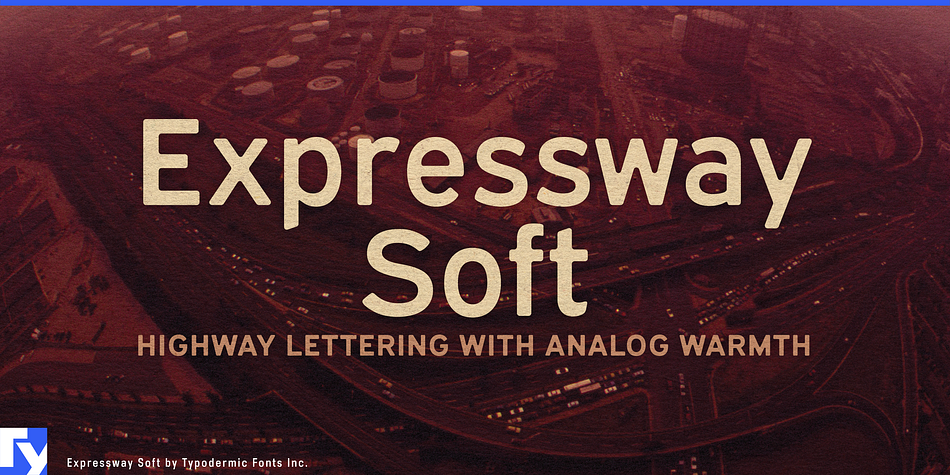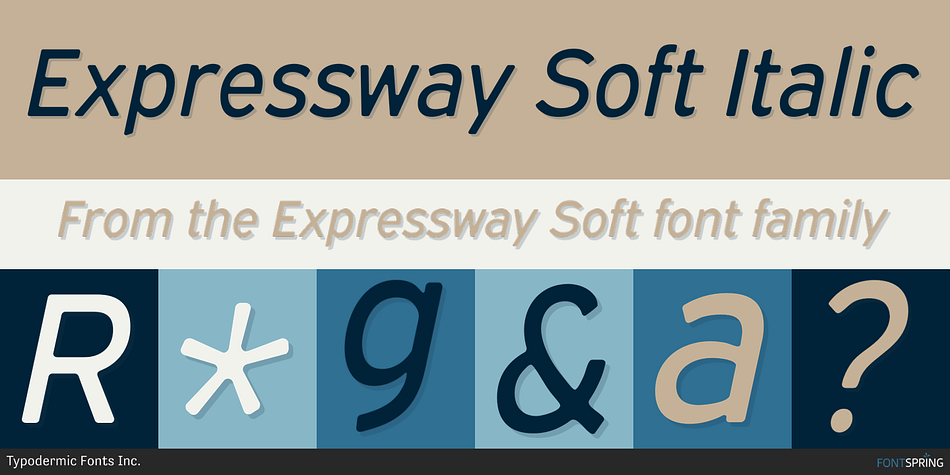
Expressway Soft Italic
Designed by Ray Larabie, Expressway Soft is a sans serif font family. This typeface has twelve styles and was published by Typodermic Fonts Inc.
Rev up your design game with Expressway Soft, the sans-serif font family that brings a touch of automotive style to your projects. Inspired by the U.S. Department of Transportation’s FHWA Series of Standard Alphabets, this font has been the go-to choice for road signs across the world, from the sweeping highways of Australia to the bustling streets of India.
With its soft, rounded corners, Expressway Soft captures the feeling of cruising down an open road, while its twelve styles—including six weights and italics—offer versatility and flexibility for any design project. Old-style and monospaced numerals make it easy to create eye-catching price lists and other tabular data, while the font’s focus on design over regulation allows you to truly unleash your creativity.
Whether you’re designing a bold, attention-grabbing billboard or a sleek, modern website, Expressway Soft has the style and functionality you need. So why settle for a font that’s strictly by the book when you can hit the road in style with Expressway Soft? And if you’re looking for a more angular variant, be sure to check out Typodermic Fonts’ Expressway with squared-off corners.